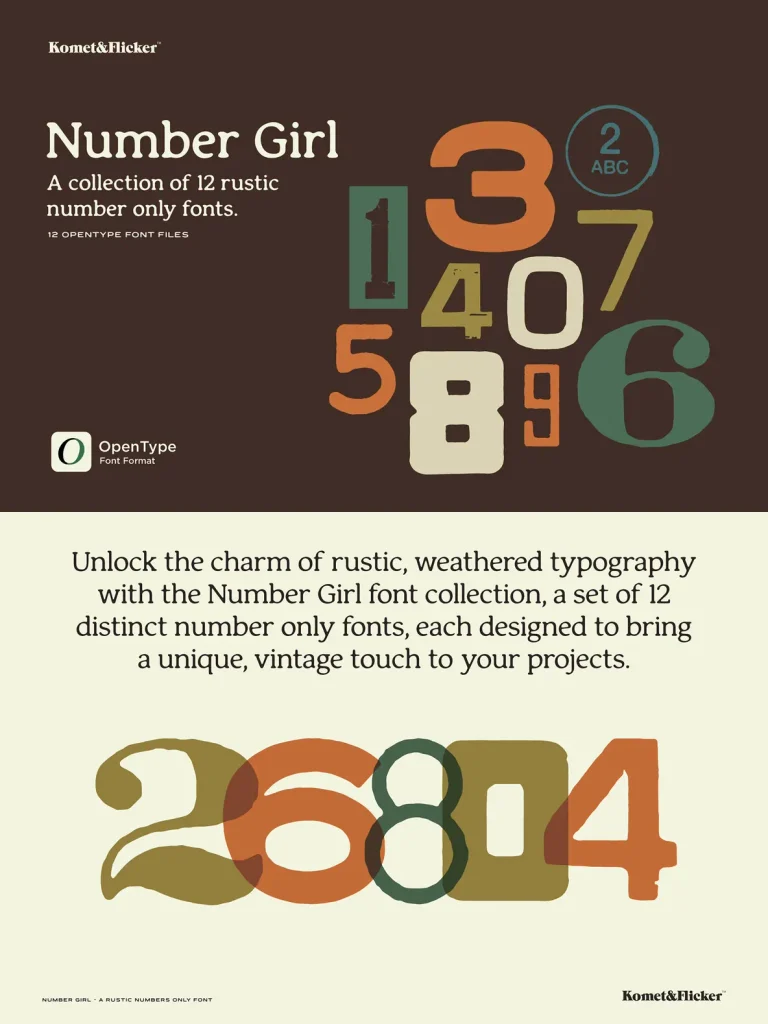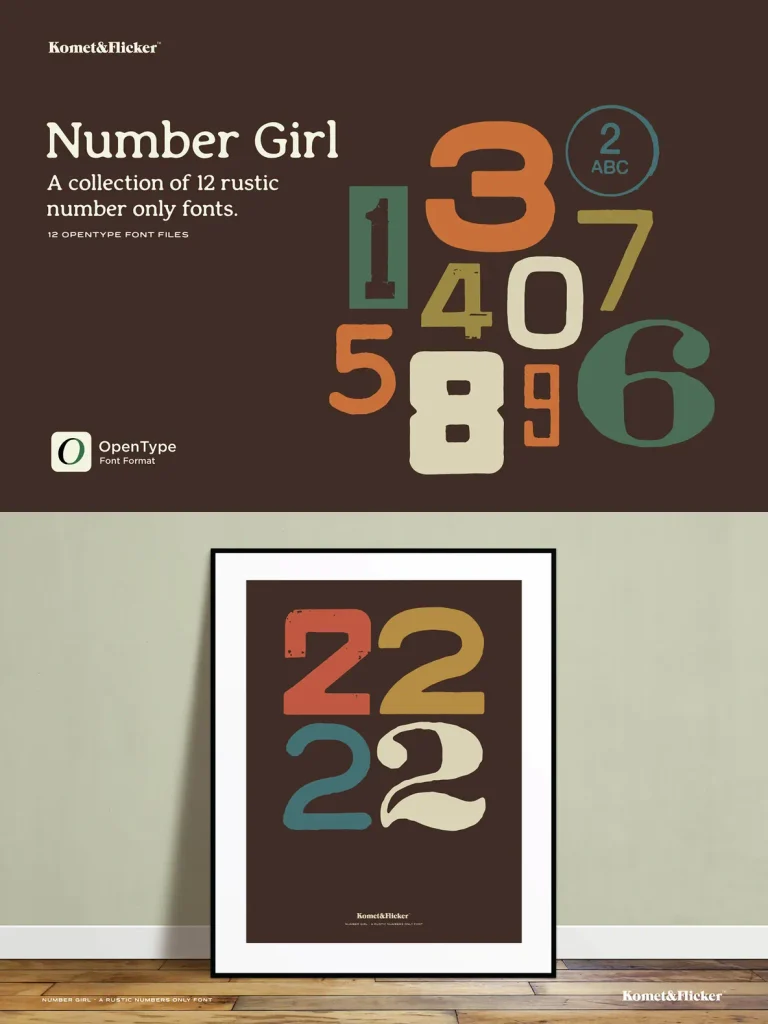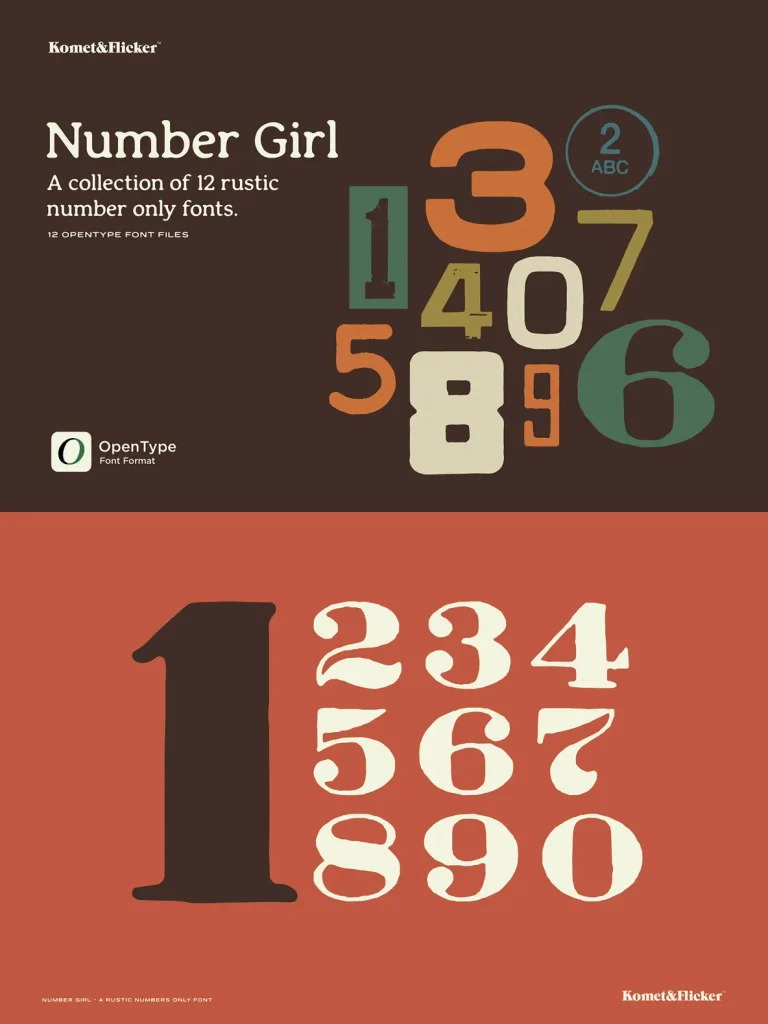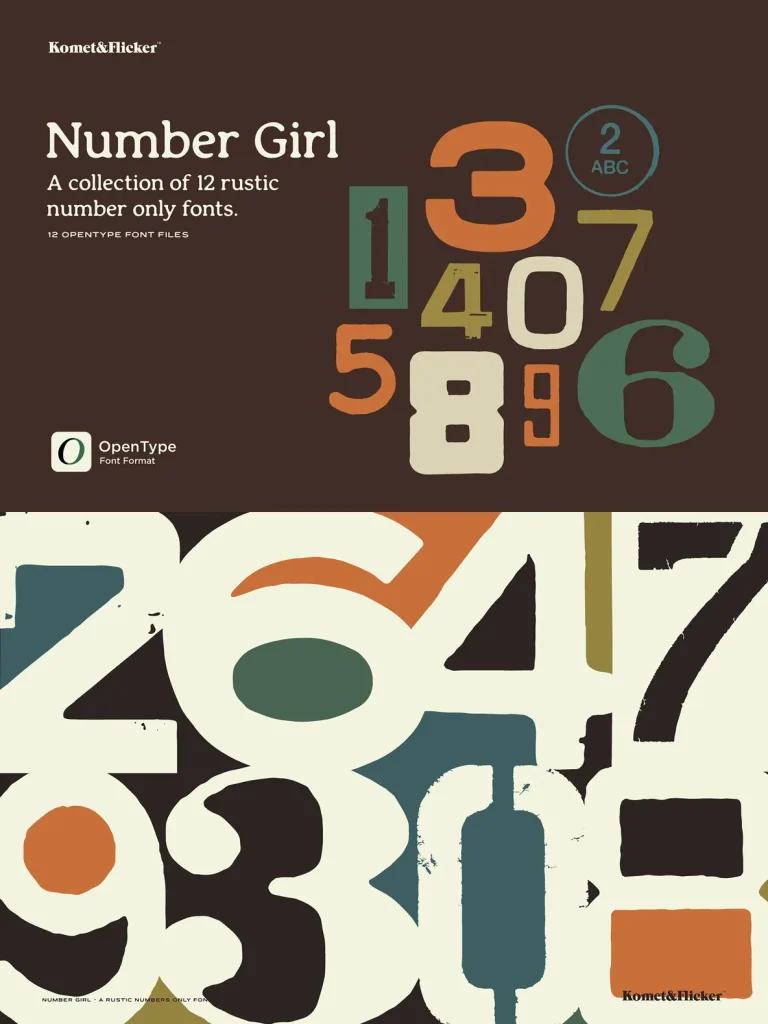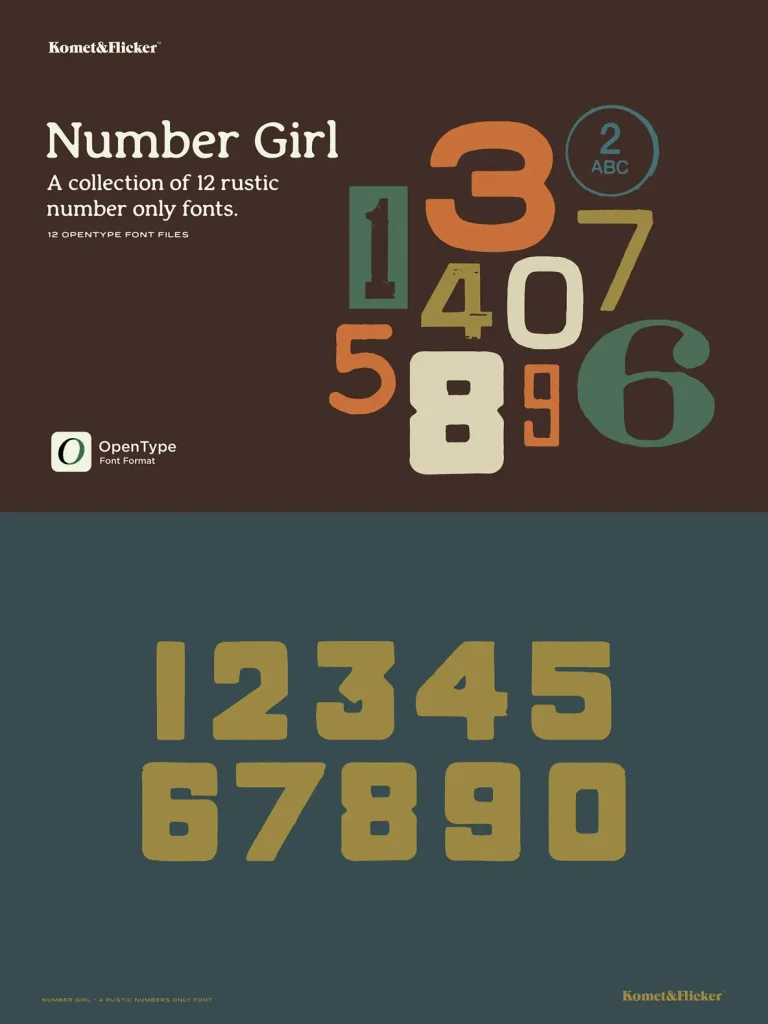
Number Girl — Weathered Numerals With Character
Number Girl brings rustic, weathered typography to number-focused design. This collection includes 12 distinct number-only fonts, each made to give projects a unique vintage touch. Use these number fonts for posters, branding, social media graphics, and more when your layout needs numerals with texture, age, and visual presence.
Each typeface in the set focuses on numbers in their most authentic, time-tested form. The collection suits rustic, industrial, and vintage aesthetics, with variations in texture and design that give every font its own personality. Number Girl is a practical choice for designers who need expressive numerals without extra characters.
This Font Features
12 Individual Fonts:
Each font in the collection is a 0-9 numbers-only typeface, with distinct variations in texture and design.
Rustic & Well-Weathered Look:
These numbers have a hand-crafted, aged appearance, perfect for evoking a sense of history and character in any design.
Versatile & Timeless:
These fonts can be used across a variety of design styles and are ideal for projects with a rustic, industrial, or vintage aesthetic.